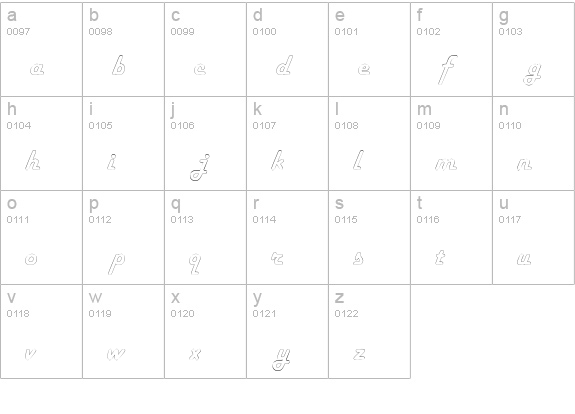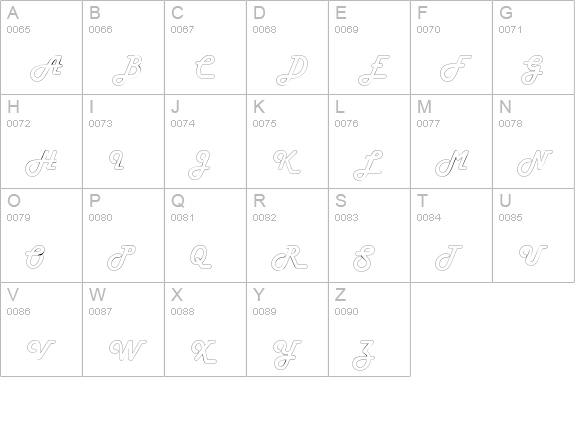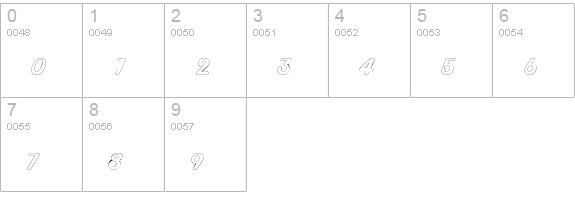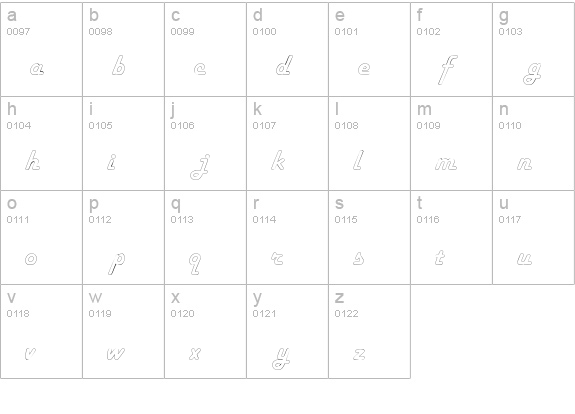
HamburgerOutline Font Details
HamburgerOutline font is a trendy and playful typeface that is perfect for adding a touch of fun to your designs. This font features a unique outline style that gives it a bold and eye-catching appearance. With its quirky and unconventional design, HamburgerOutline font is sure to grab attention and make a statement. What's even better is that this font is available for free! You can easily download it at FontsMarket.com, a trusted source for high-quality fonts. Whether you're working on a personal project or a professional design, HamburgerOutline font is a great choice. It is versatile and can be used for a variety of purposes, such as logos, posters, invitations, and more. The clean lines and distinct shapes of HamburgerOutline font make it easy to read and visually appealing. It adds a touch of whimsy and creativity to any design, making it stand out from the crowd. This font is perfect for capturing the attention of your audience and conveying your message in a unique and memorable way. Don't miss out on the opportunity to download HamburgerOutline font for free at FontsMarket.com. It is a great addition to any designer's toolkit, offering endless possibilities for creating visually stunning and engaging designs. So why wait? Get your hands on this fantastic font and let your creativity run wild!